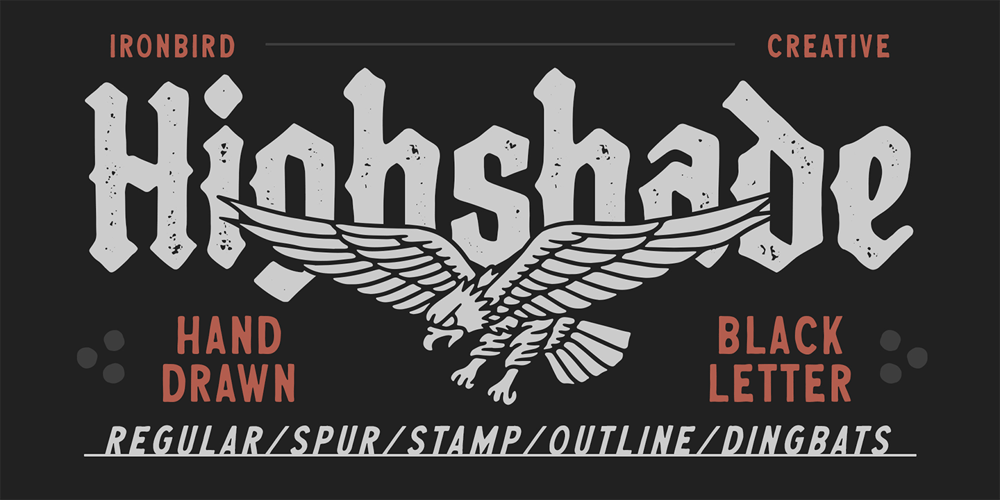
Highshade
Highshade font
Highshade Font Family was designed by Septianto Nugroho and published by Ironbird Creative. Highshade contains 7 styles and family package options. Introducing, HIGHSHADE our stunning and unique Organic Blackletter font, hand-drawn with care and precision to capture the essence of strength and power. Every line and curve has been crafted by hand, giving this font an authentic and organic feel that sets it apart from other Blackletter fonts.Suitable for any graphic designs such as branding materials, t-shirt, print, logo, poster, t-shirt, quotes .etcNOTE : Please Check the Help File first and for all the characters are also available, accessible in the Adobe Illustrator Glyphs Panel, or in Adobe Photoshop Character Open Type Panel.We hope you enjoy the font, please feel free to comment if you have any thoughts or feedback. Thanks for purchasing and have fun!Regards,Ironbird Creative